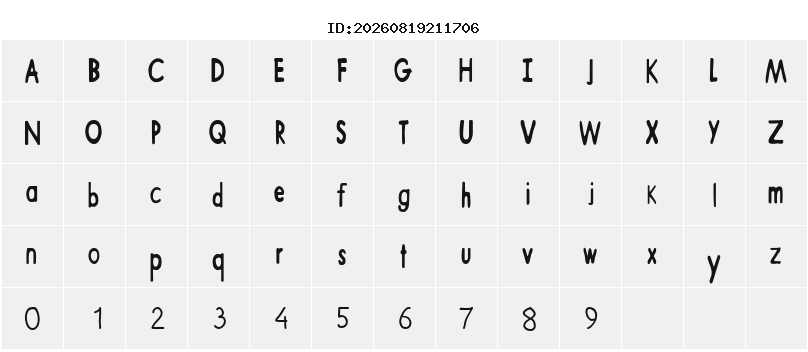
Shaun the Sheep Preview
• Font Name: Shaun the Sheep
• Full Font Name: Shaun the Sheep
• Designer: SpideRaY
• Manufacturer: SpideRaY
Shaun the Sheep.ttf is a modern, elegant sans-serif font designed for ultimate readability and visual harmony. Perfect for branding, headlines, web design, and print materials.